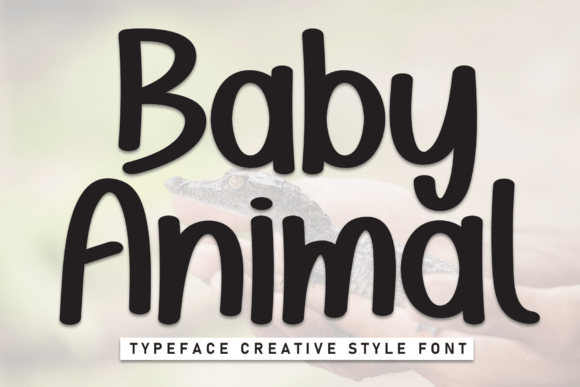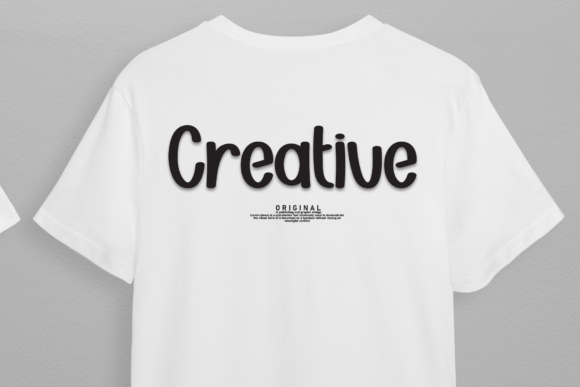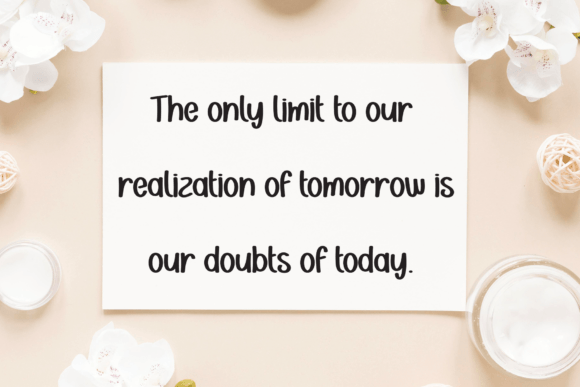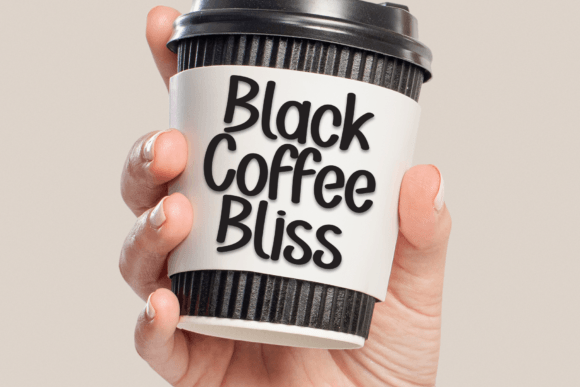
Baby Animal Font
About the Baby Animal Font
Welcome to the world of Baby Animal Font, a typeface that will inspire your next great project. **Baby Animal** is a cute and playful font that looks like it was written by hand. It has a fun and bold style, perfect for anything related to babies and animals!
Its playful, hand-drawn quality makes it ideal for children’s books, branding for pet-related businesses, or playful packaging designs. It would also work well for short headlines or playful social media graphics. However, avoid using it for body text or lengthy paragraphs; its informal nature makes it less legible for extended reading. Consider pairing it with a clean sans-serif like Open Sans for a balanced contrast or a simple serif font such as Lora for a slightly more traditional feel.
The font’s inherent boldness and friendliness make it unsuitable for projects requiring a sophisticated or formal tone. It is best suited for brands that project happiness, innocence, and approachability.
For a more whimsical feel, consider pairing it with a playful script font. Alternatively, a geometric sans-serif could provide a modern counterpoint, creating a dynamic contrast in styles.
Baby Animal Font Usage Examples
Baby Animal Font Example